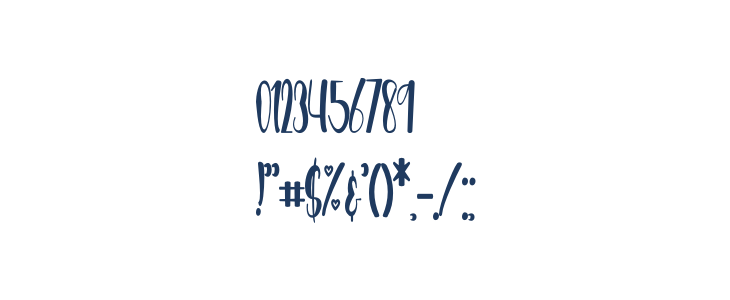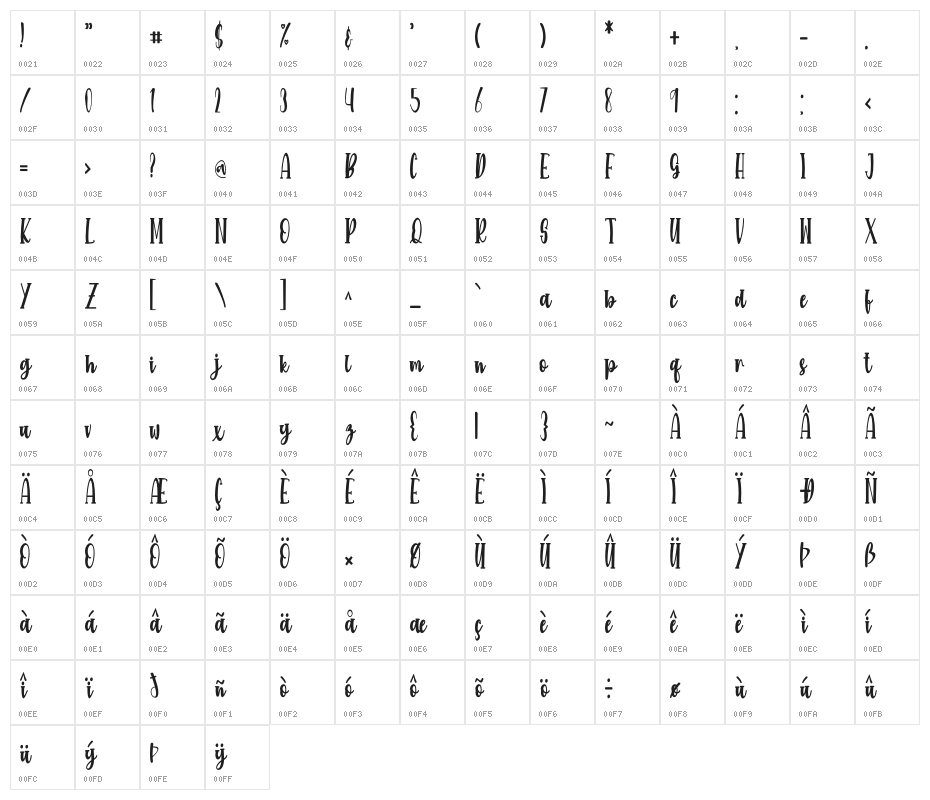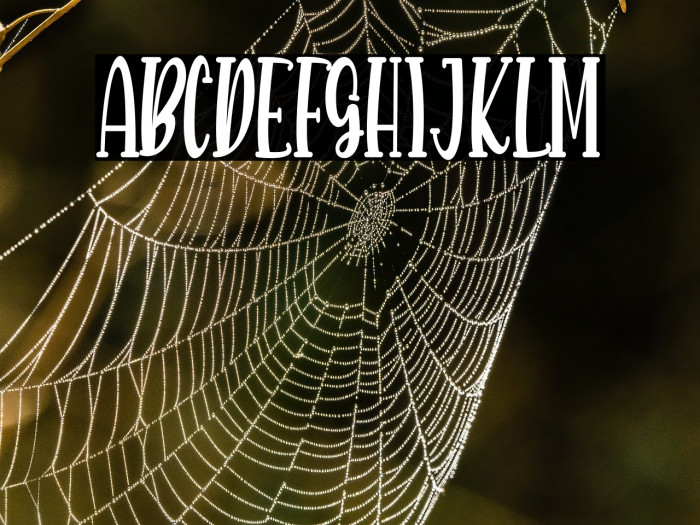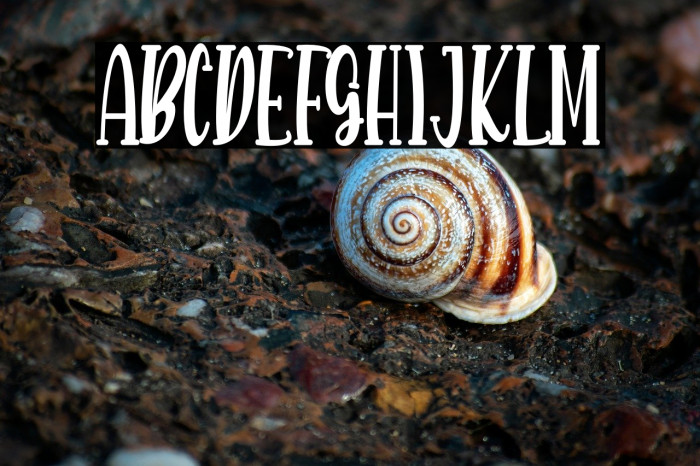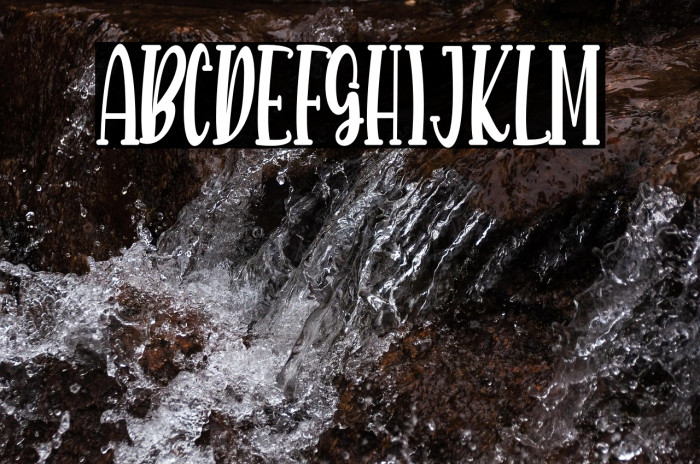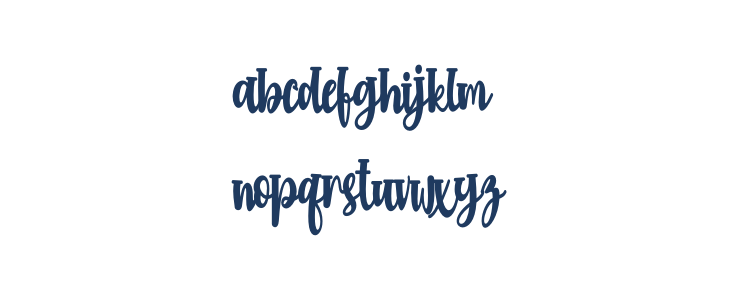
Marmitte Font
Marmitte Description
This font features a playful and dynamic style, combining elements of both script and display typography. The uppercase letters are tall and narrow with a slight slant, giving them an elegant yet whimsical appearance. The lowercase letters are more fluid and connected, resembling a casual handwritten script. The numbers maintain the playful aesthetic, with varying stroke widths that add character. Special characters are creatively designed, adding to the font's unique personality. Overall, this font exudes a sense of fun and creativity, making it suitable for projects that require a lively and engaging typeface.
| Overall Style | Playful, Creative |
| Proposed Projects | Ideal for greeting cards, playful branding, children's books, and creative posters. |